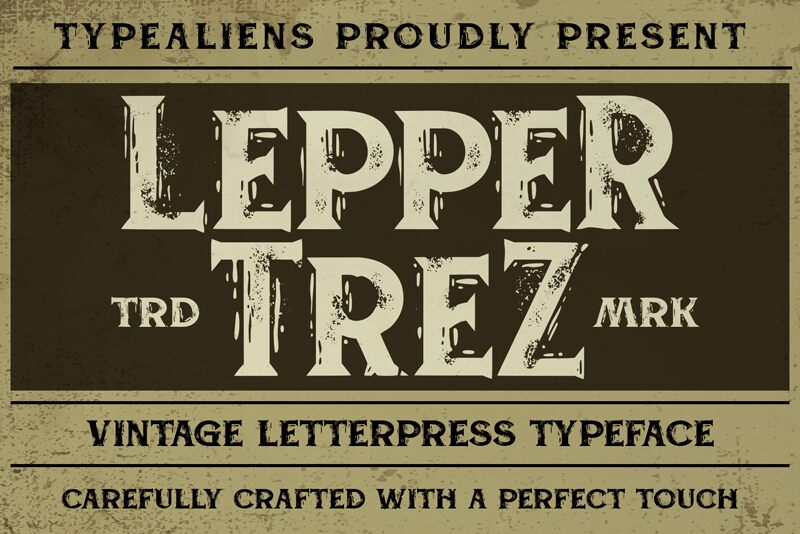
Leppertrez, a creation of the talented ilhamtaro, is a display font that exudes a retro charm with its semi-light weight and semi-expanded width. This font's aesthetic harks back to an era of nostalgia, making it perfect for projects that aim to evoke vintage vibes while maintaining readability and character distinctiveness.
The Leppertrez font's style is imbued with the elegance of the past yet designed for contemporary appeal. Its unique letterforms provide a balance between classic design and modern flair, making it ideal for branding, poster design, and editorial work where a touch of retro sophistication is desired.
Its semi-expanded width offers designers more breathing room between characters without sacrificing impact—a feature that enhances legibility in larger displays. The semi-light weight strikes an excellent balance; it stands out in print or digital formats without overwhelming other design elements.
Leppertrez's versatility can bring a distinctive edge to various creative projects, infusing them with personality and style that sets them apart in today's visually saturated market.